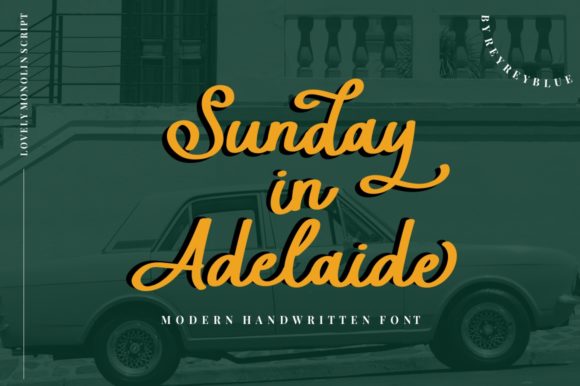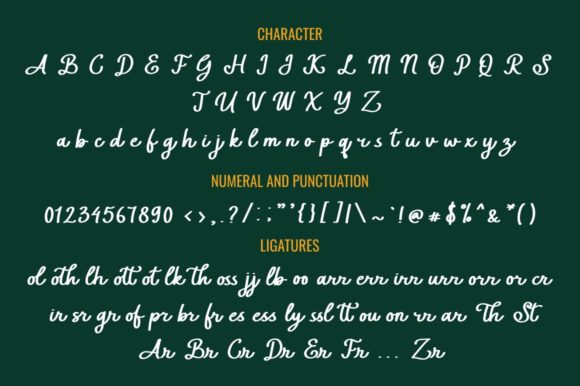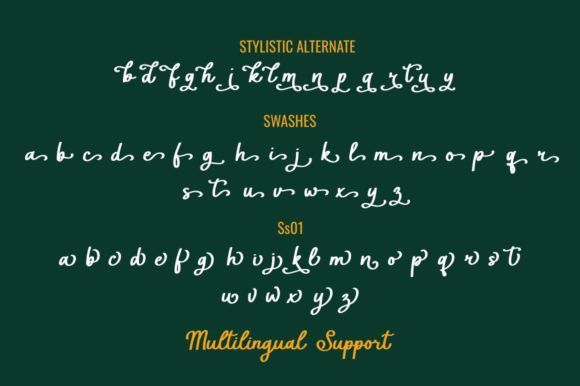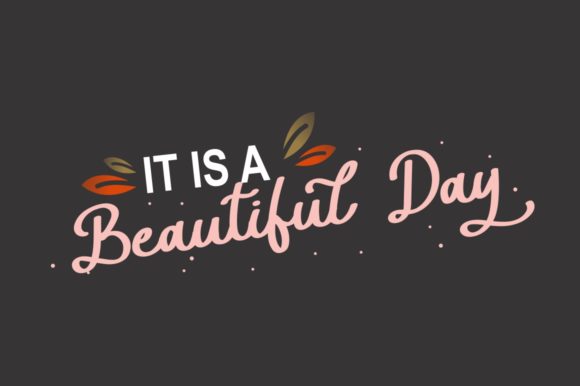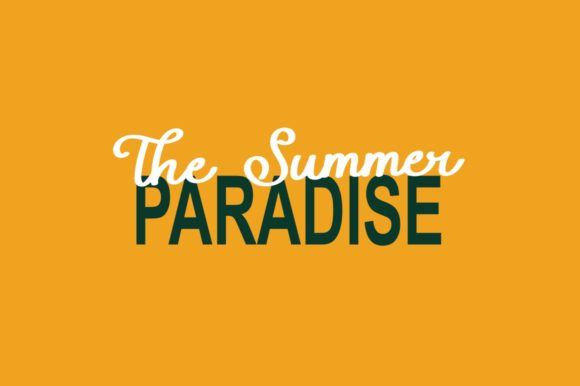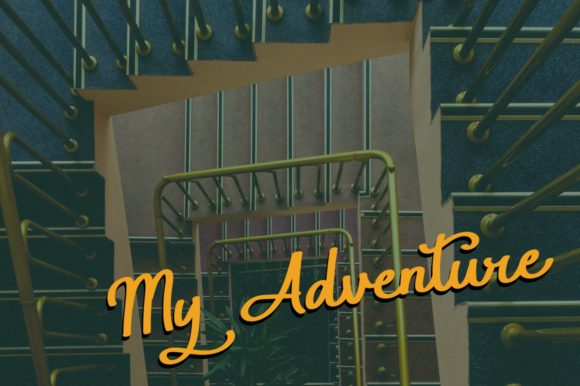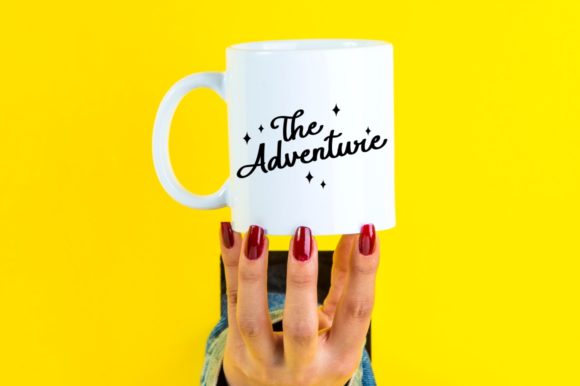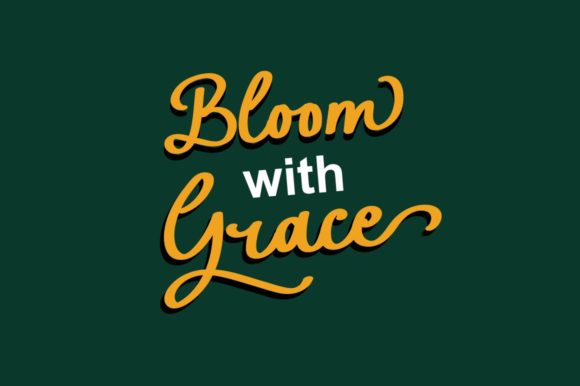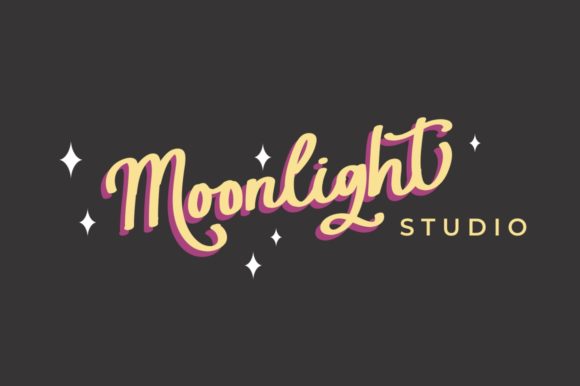
Sunday in Adelaide Font
Sunday in Adelaide is a charming and nostalgic brushed handwritten font that adds a touch of retro style to your designs. With its sweet and natural brush strokes, this font exudes a sense of warmth, creativity, and personality.
The unique retro style of Sunday in Adelaide brings a delightful and nostalgic vibe to your designs. It captures the essence of a bygone era, adding a sense of vintage charm and character. Whether you’re designing posters, logos, social media graphics, or any other creative projects, Sunday in Adelaide infuses your designs with a touch of nostalgia, making them stand out and evoke a sense of familiarity and warmth.
The brushed texture of the font gives it a natural and handcrafted feel. Each letter carries a sense of authenticity and uniqueness, as if they were lovingly created with a brush and ink. This adds a personal and organic touch to your designs, making them feel more genuine and relatable.
Sunday in Adelaide is versatile and can be used in various design contexts. It works well for headlines, titles, quotes, and any other text that needs to make a bold statement. Its strong and confident appearance adds impact and draws attention to your message.
The font’s dynamic and lively nature makes it suitable for a wide range of design projects. Whether you’re working on branding, packaging, invitations, or any other creative endeavor, Sunday in Adelaide injects energy and character into your designs, creating a memorable and engaging visual experience.
In summary, Sunday in Adelaide is a sweet brushed handwritten font with a lovely retro style. Its strong, confident, and dynamic appearance adds nostalgic character to your designs, making them stand out and evoke a sense of warmth and creativity. Embrace the charm of Sunday in Adelaide and let it infuse your designs with its unique and captivating personality.